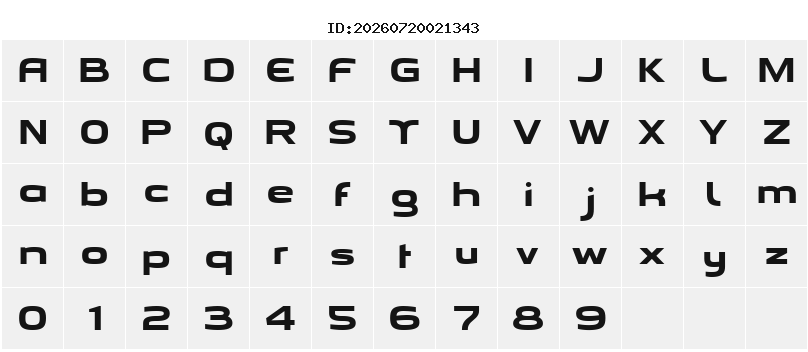
Emmanuelle Preview
• Font Name: Emmanuelle
• Designer: Beno”t Sjšholm
About Emmanuelle.ttf
Emmanuelle.ttf is a modern, elegant sans-serif font designed for ultimate readability and visual harmony. Perfect for branding, headlines, web design, and print materials.